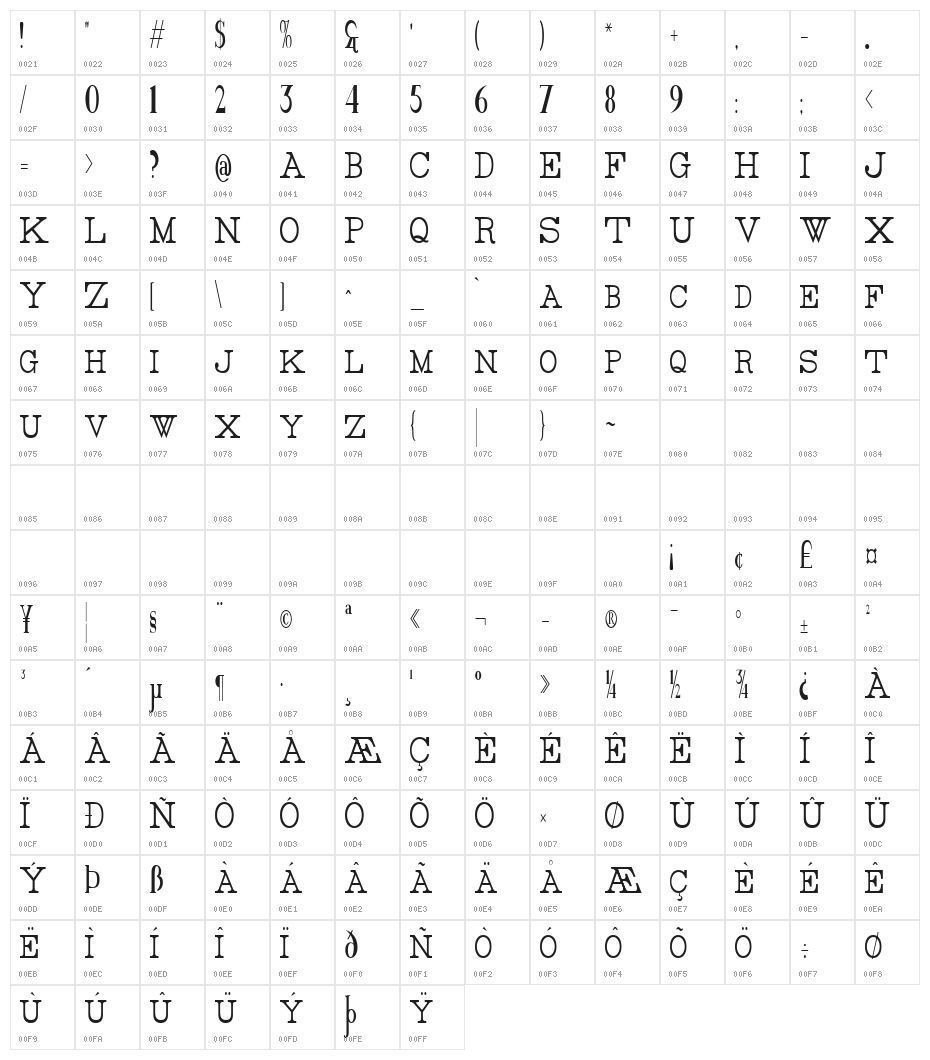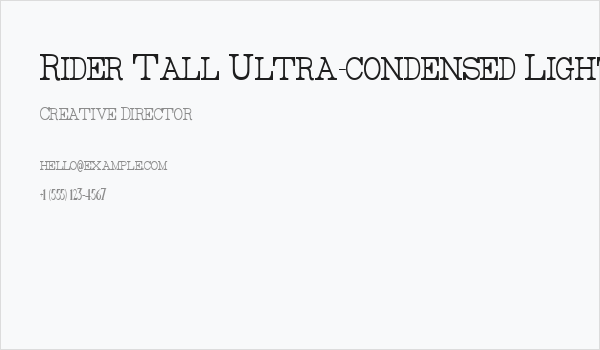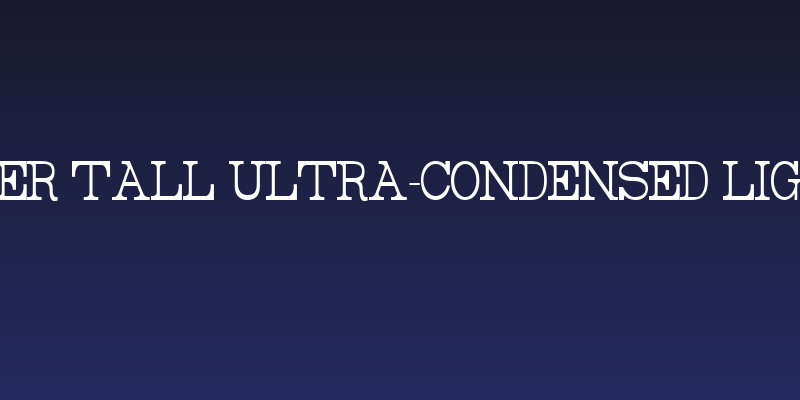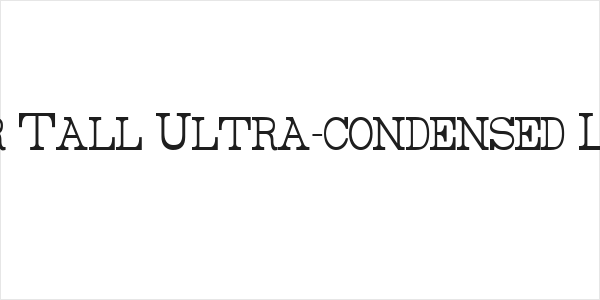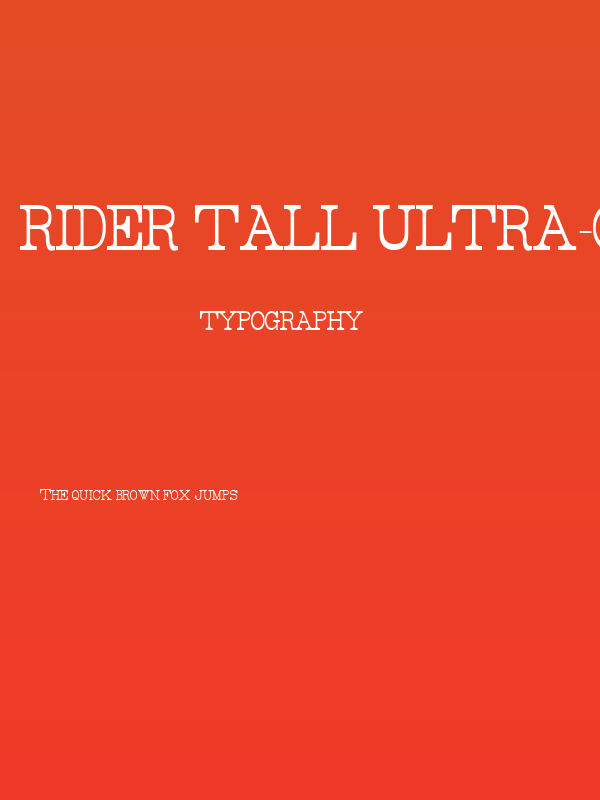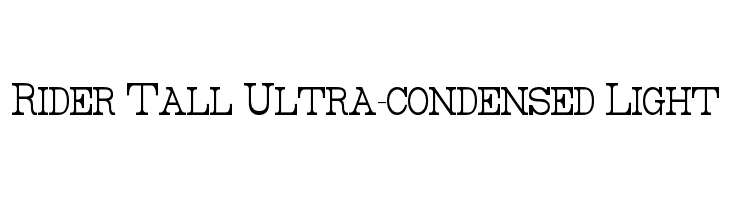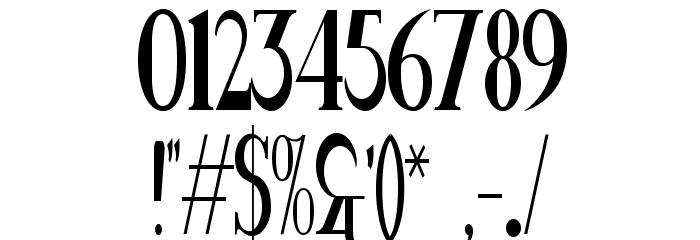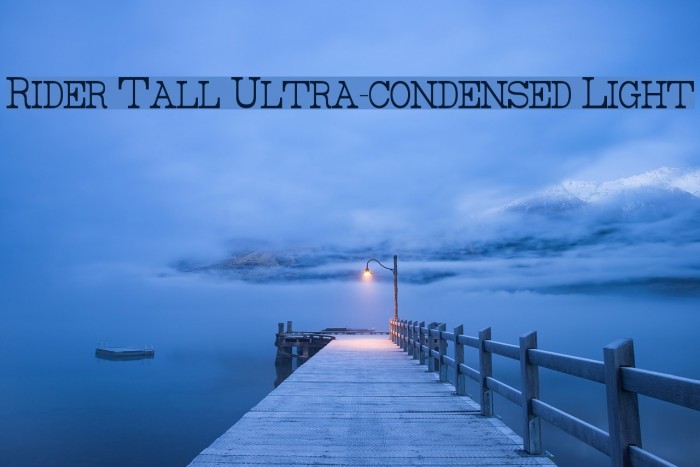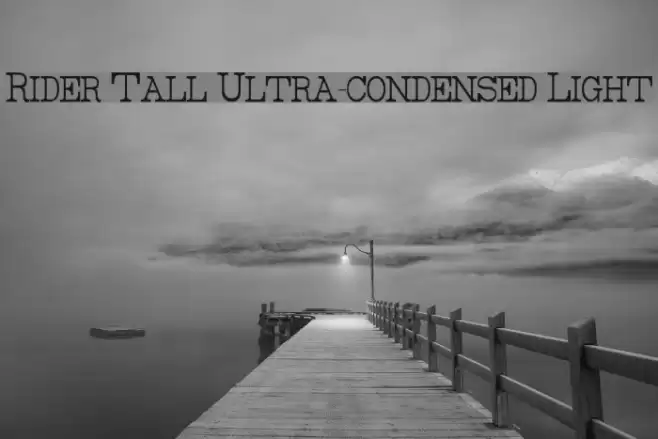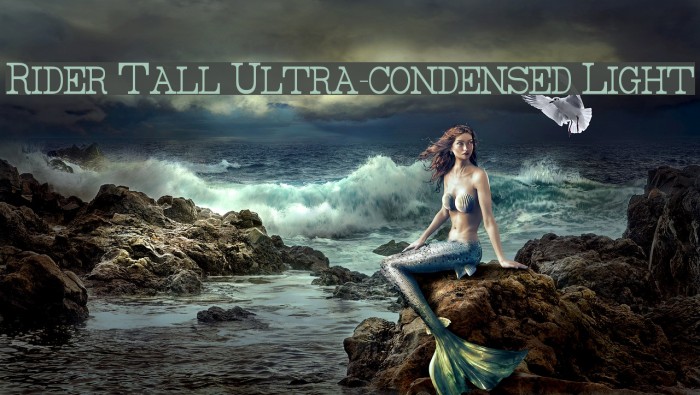
Rider Tall Ultra-condensed Light Font
Rider Tall Ultra-condensed Light Description
This font features an ultra-condensed and tall design, characterized by its elongated and narrow letterforms. The strokes are light, giving it an airy and elegant appearance. The uppercase letters exhibit a classic serif style with a modern twist, while the lowercase letters maintain a consistent height and width, enhancing readability. The numerals are distinct and align well with the overall aesthetic, making them suitable for various applications. Special characters are included, maintaining the same stylistic approach, ensuring versatility in design projects.
| Proposed Projects | Ideal for fashion magazines, luxury branding, editorial headlines, and elegant invitations. |